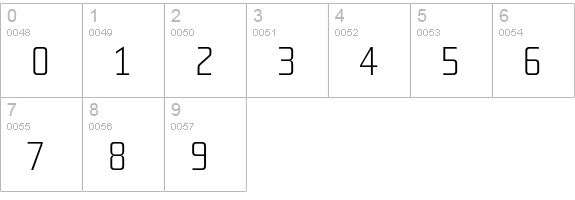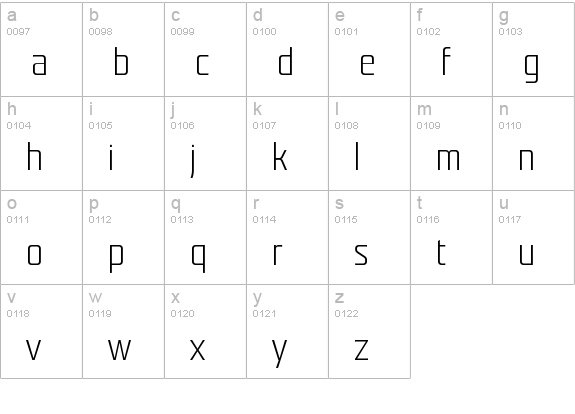
Introducing Teuton Hell, a captivating and mesmerizing font that effortlessly balances elegance with a touch of edginess. This unique typeface is bound to leave a lasting impression on any design project, whether it's a logo, branding materials, or even a striking headline. With its bold and sharp lines, Teuton Hell exudes a sense of strength and power, making it perfect for projects that require a bold statement. Its carefully crafted details and intricate curves give it a distinctive character that sets it apart from other fonts. But what makes Teuton Hell even more desirable is the fact that it is completely free! Yes, you read that right. This remarkable font is freely available to download at FontsMarket.com, allowing you to elevate your designs without breaking the bank. Whether you're a professional designer looking to add a touch of sophistication to your work, or a hobbyist seeking a versatile font for personal projects, Teuton Hell has got you covered. Its versatility enables it to seamlessly adapt to various design styles, ranging from modern and minimalist to vintage and grunge. So why wait? Unlock the potential of your designs with Teuton Hell. Download it for free at FontsMarket.com and let your creativity soar to new heights. Embrace the boldness, embrace the elegance, and make a statement that won't be easily forgotten.